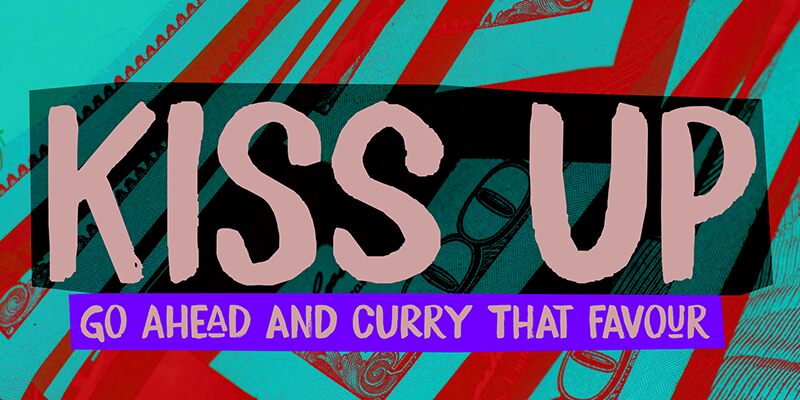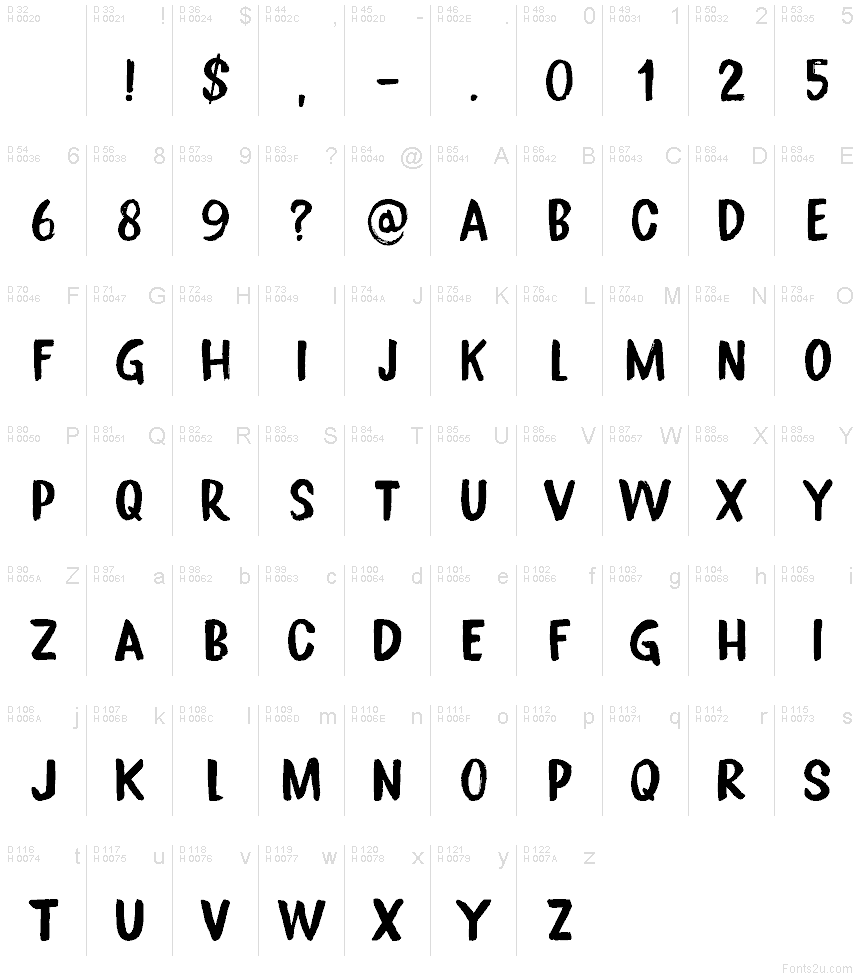
Kiss Up DEMO Regular
Kiss Up font is a brush typeface by Hanoded with a hand-drawn appearance. The loosely structured characters appear on an uneven baseline for a casual style, which adds personality to your graphics. With contemporary applications in mind, design professionals can utilize this tool in various engaging creative projects.